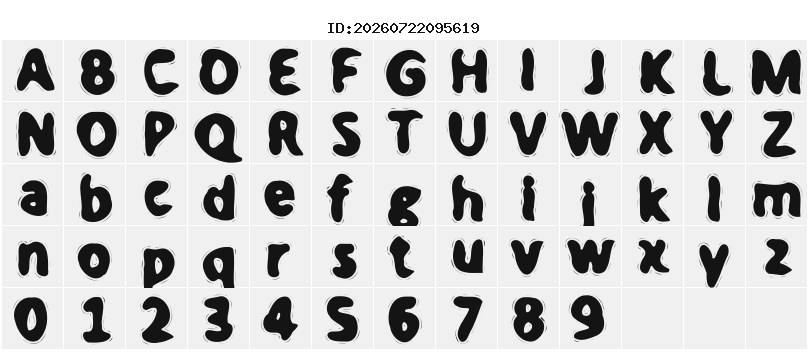
Her Pin Code Is 0-0-0-0 Bold Preview
About Her Pin Code Is 0-0-0-0 Bold.ttf
Her Pin Code Is 0-0-0-0 Bold.ttf is a modern, elegant sans-serif font designed for ultimate readability and visual harmony. Perfect for branding, headlines, web design, and print materials.